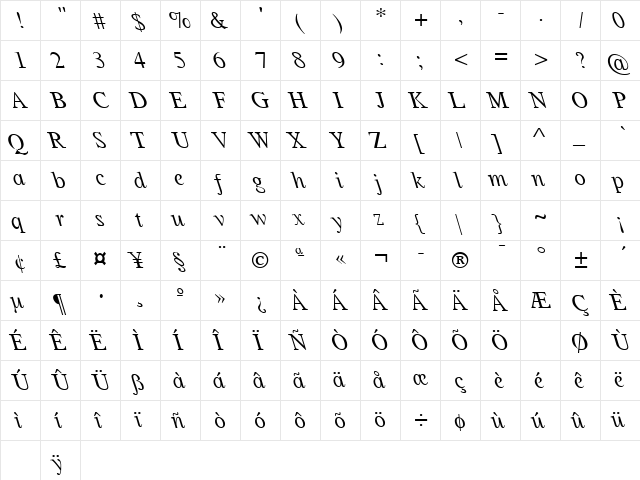
Brain Damage 7 Italic
Design Context for Brain Damage 7 Typeface
Brain Damage 7 offers clean, dependable letterforms without strong stylistic allegiance, making it a practical choice for designers who need flexibility. The slanted form adds forward momentum and visual energy.
Pro Tip: Use Brain Damage 7 for emphasis, pull quotes, and subheadings where its slanted energy can add rhythm to the layout.